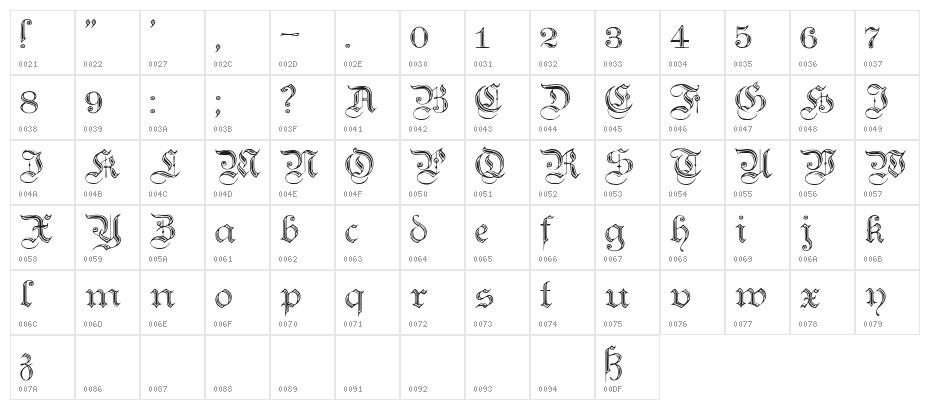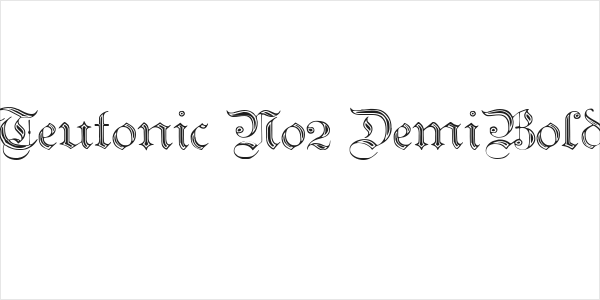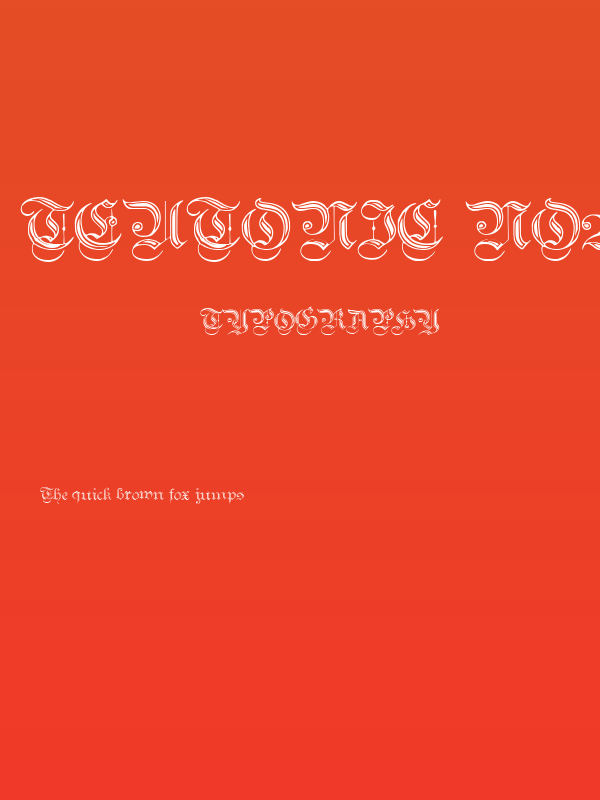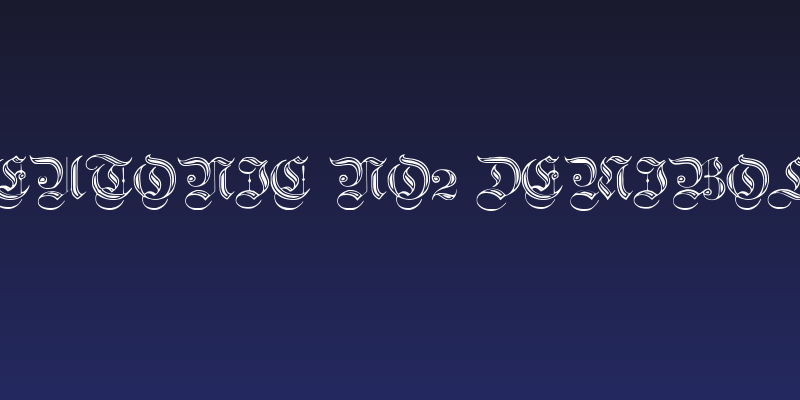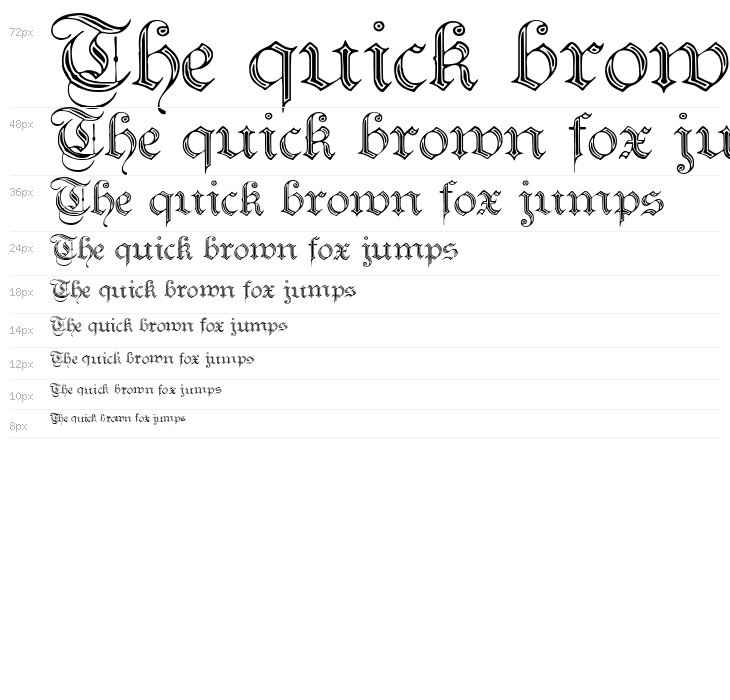
Teutonic No2 DemiBold Font
Teutonic No2 DemiBold Description
This font exhibits a classic Blackletter style, characterized by its intricate and ornate design. The letters are bold and angular, with sharp serifs and elaborate flourishes that give it a medieval, Gothic appearance. The uppercase letters are particularly striking, with dramatic curves and pointed edges, while the lowercase letters maintain a consistent style with slightly more rounded forms. The numerals are equally decorative, featuring unique shapes that complement the overall aesthetic. This font is highly decorative and captures the essence of traditional calligraphy with its detailed and artistic strokes.
| Proposed Projects | Ideal for historical or fantasy-themed projects, such as book covers, posters, or branding for events that require a medieval or Gothic touch. |